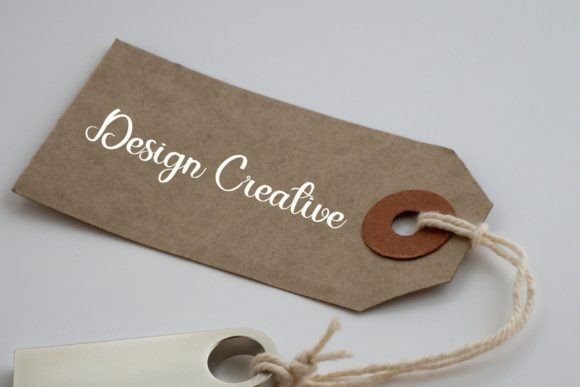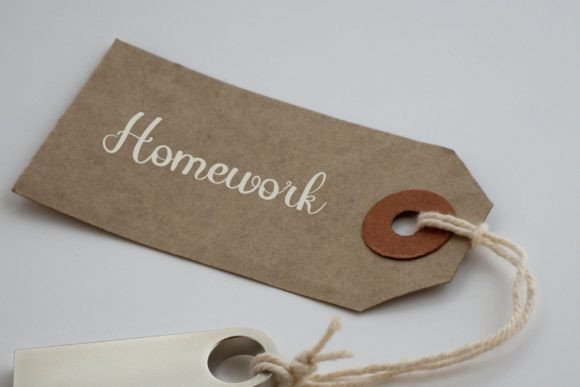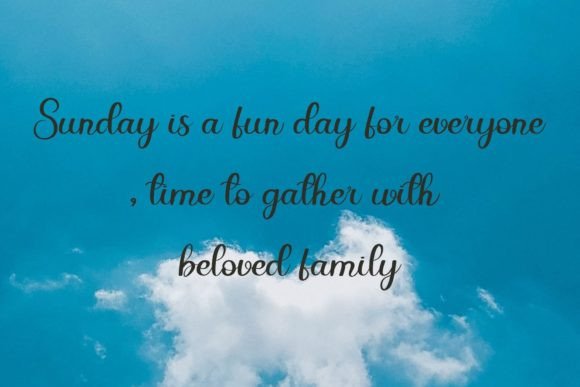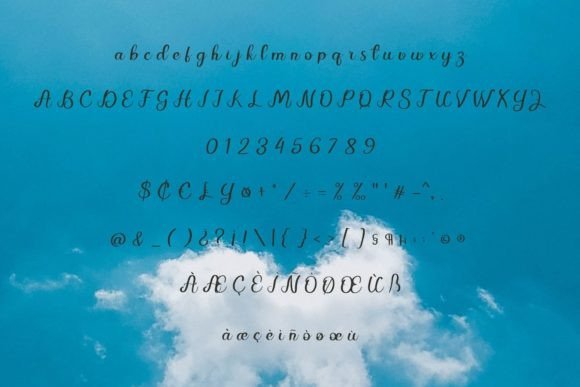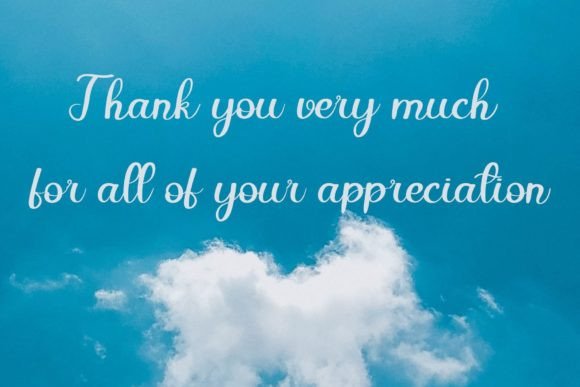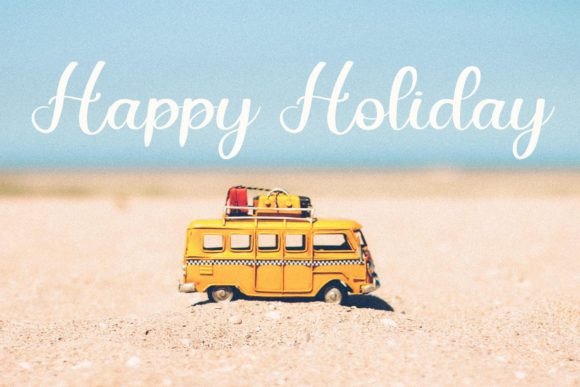
Sunday Font
About Sunday Font
Sunday is a romantic and idyllic calligraphy script font that brings characters to life as they gracefully dance along the baseline. This font is designed to add a fresh and enchanting accent to any creative design or project you wish to develop.
The romantic and idyllic qualities of Sunday make it an ideal choice for designs that seek to convey a sense of elegance and charm. Its calligraphic script style lends a touch of sophistication, making it well-suited for various applications.
For creative projects, Sunday ensures a fresh and visually pleasing experience. Whether used for branding, invitations, posters, or other design endeavors, the font elevates the overall aesthetic with its romantic and dynamic script.
In branding, Sunday contributes to a distinctive and visually appealing identity. Its fresh accent adds a touch of vitality to logos, packaging, and promotional materials, making your brand stand out with a hint of enchantment.
Imagine this font on wedding invitations or event materials, where it imparts a sense of romance and celebration. The flowing characters create a visually pleasing and harmonious design that enhances the overall atmosphere.
In conclusion, Sunday is more than just a font; it’s a creative tool crafted to bring a romantic and fresh accent to your designs. Whether used for formal or expressive projects, this calligraphy script font ensures that your creations radiate with sophistication and charm.